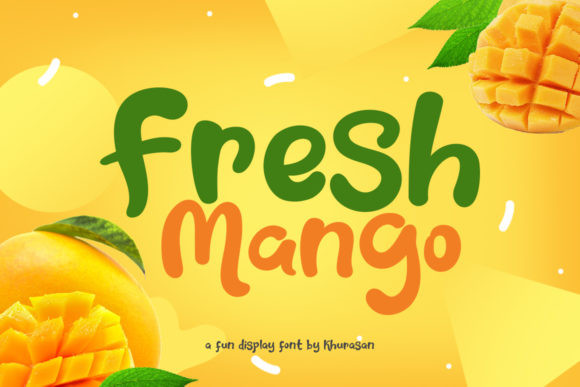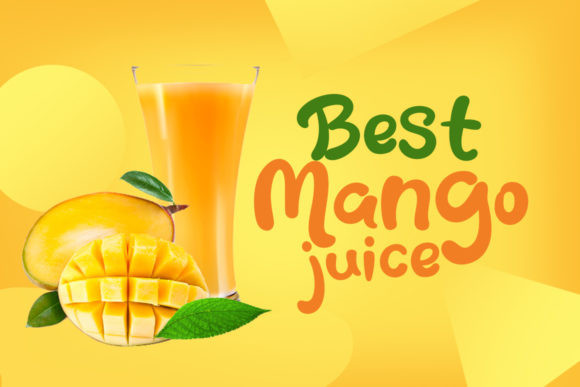
Fresh Mango Font
Fresh Mango is a fun and joyful display font. It is perfectly suited for a wide variety of projects! Add it to your creative ideas and notice how it makes them stand out!